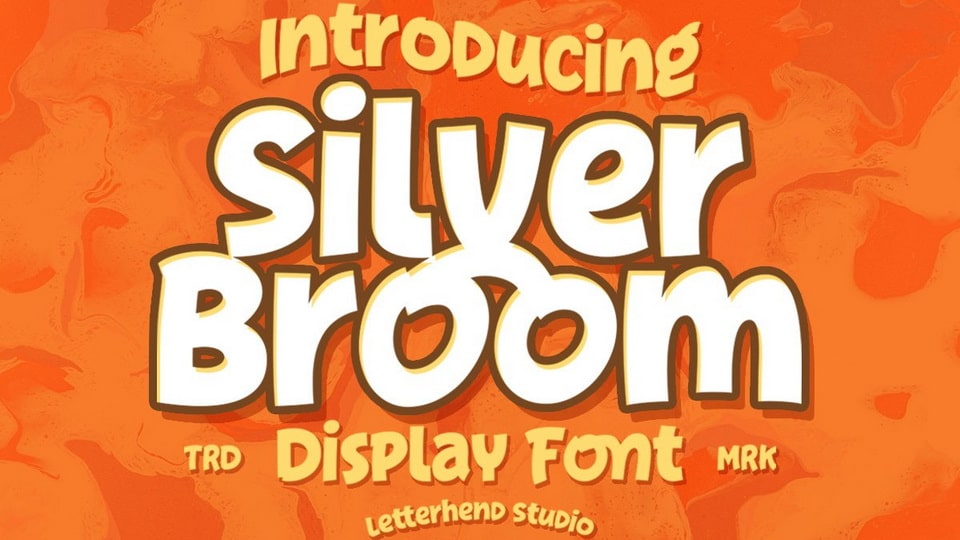
Download Silver Broom font, a display typeface with a fun and playful look. Silver Broom font is perfect to be applied especially in storybook children or child theme which is need a standout font